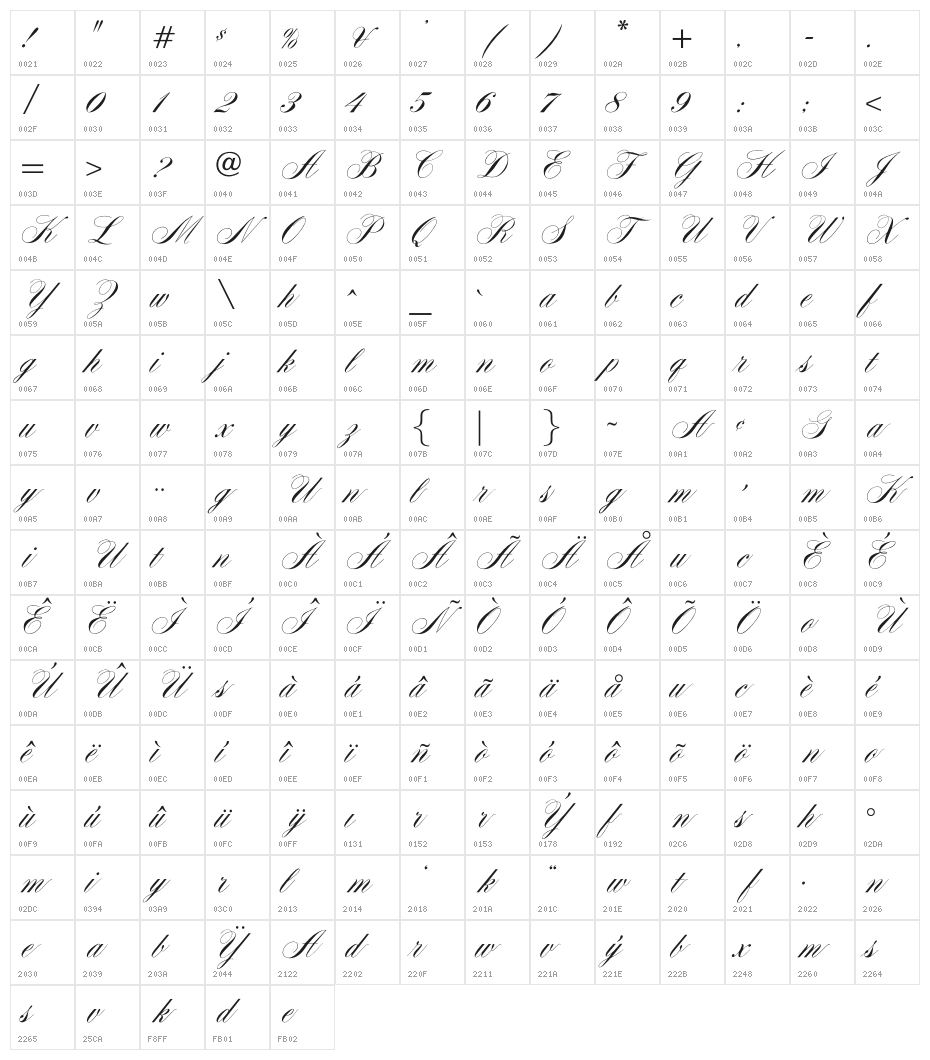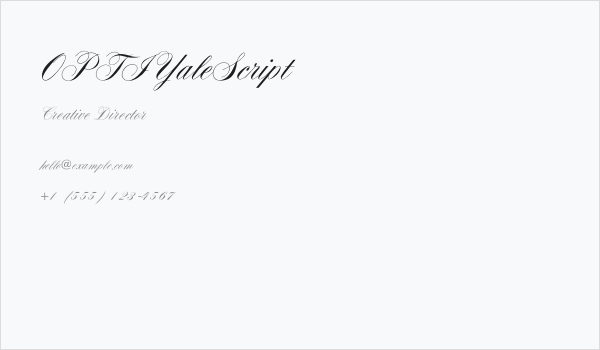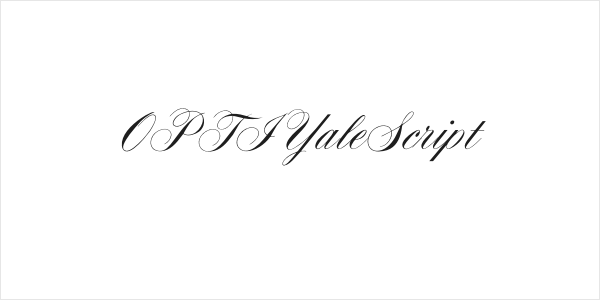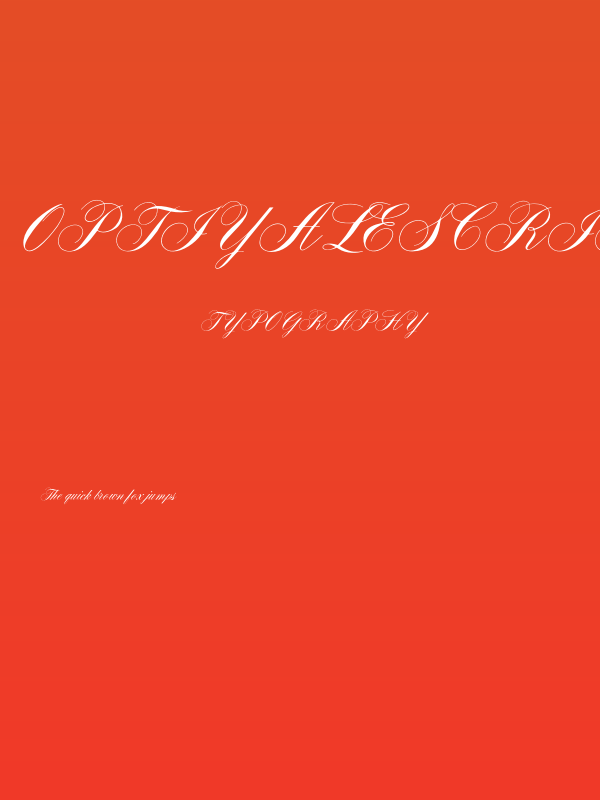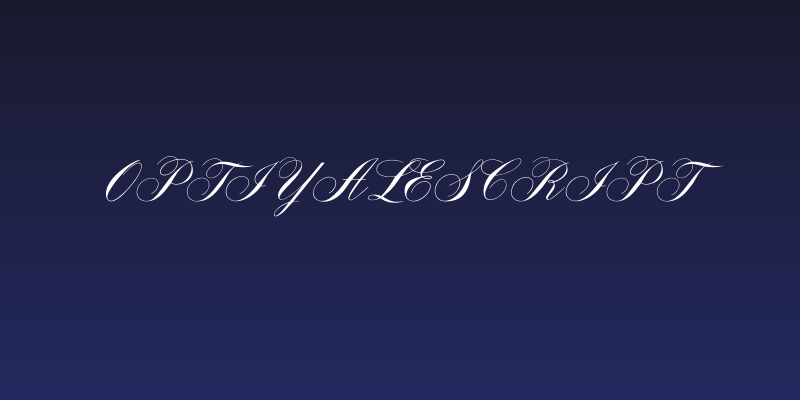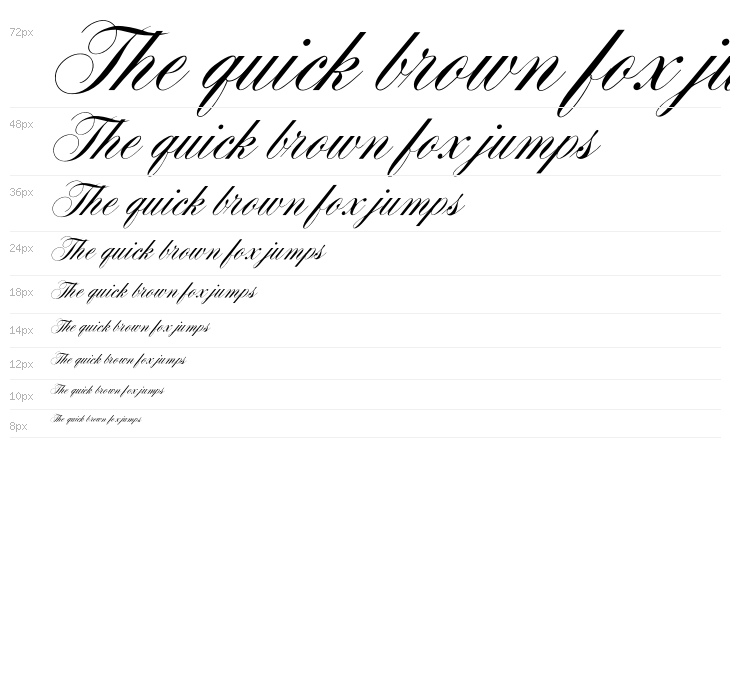
OPTIYaleScript Font
OPTIYaleScript Description
This elegant script font features a flowing, cursive style with high contrast between thick and thin strokes. The uppercase letters are ornate and sophisticated, with intricate loops and flourishes that give a sense of movement and grace. The lowercase letters maintain a consistent slant, enhancing the fluidity and continuity of the text. Numbers and special characters are designed with the same attention to detail, ensuring a cohesive and harmonious appearance. The font's overall aesthetic is both classic and refined, making it suitable for formal and decorative applications.
| Overall Style | Classic |
| Use Case | Logos, Invitations, Decorative text |
| Proposed Projects | Ideal for wedding invitations, elegant branding, formal event programs, and luxury product packaging. |